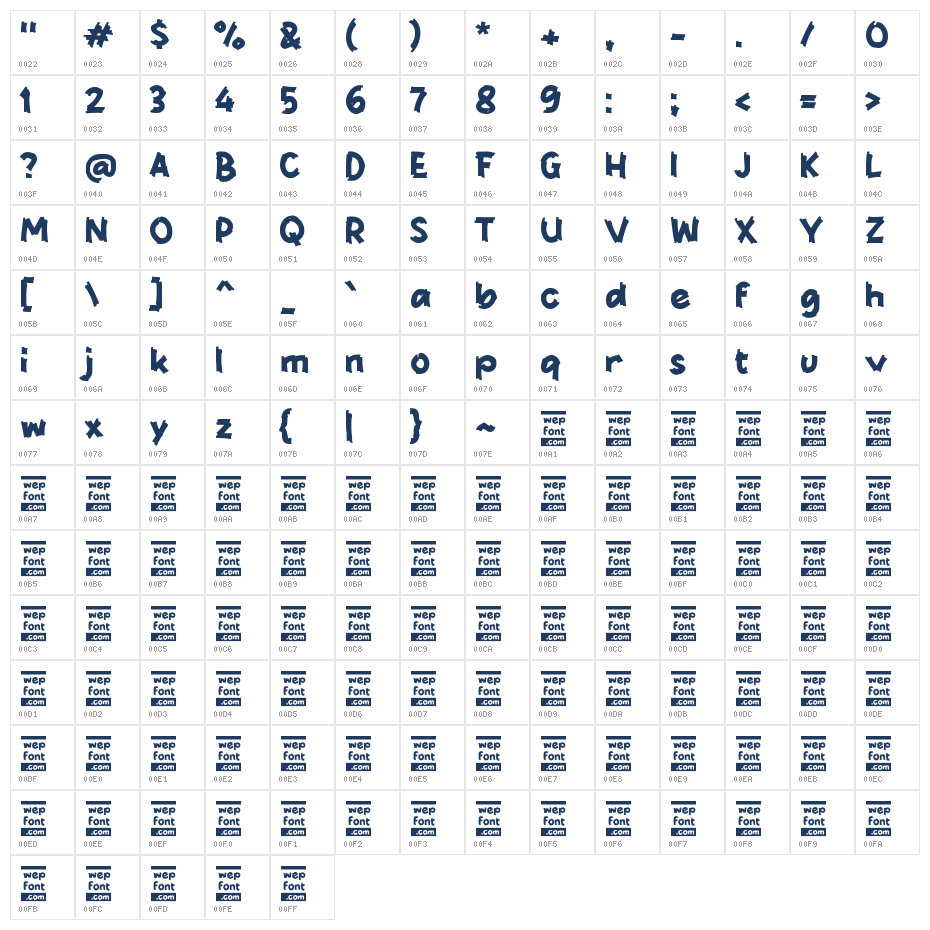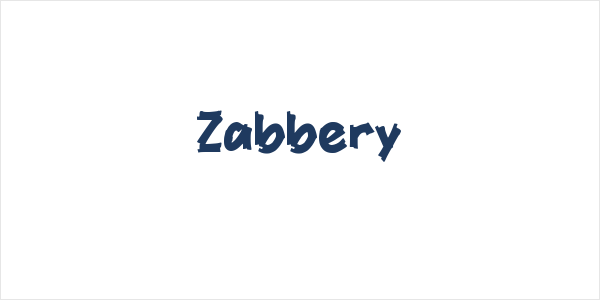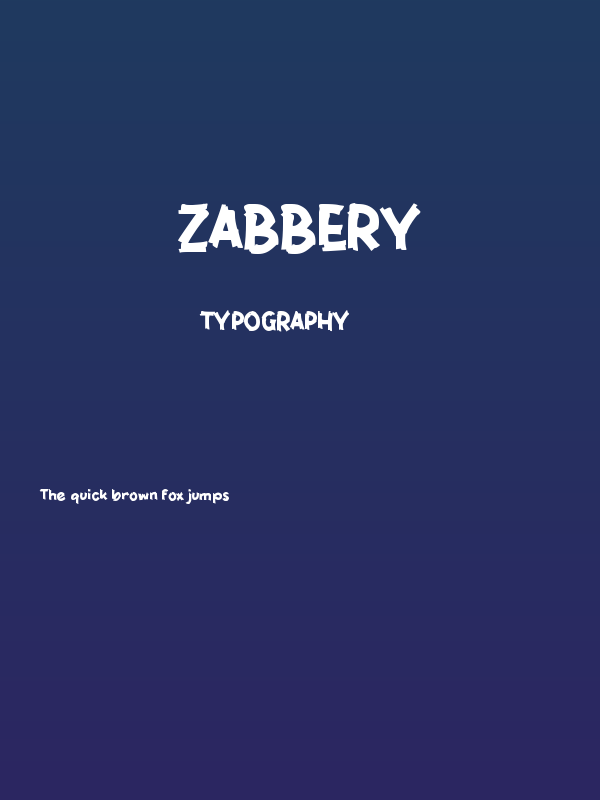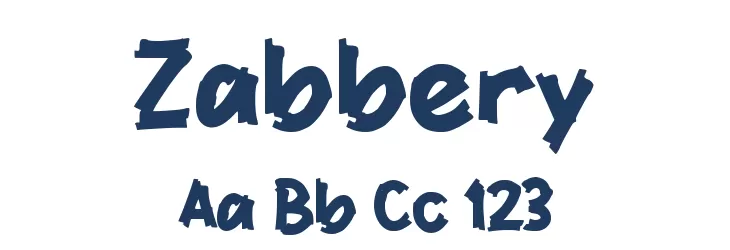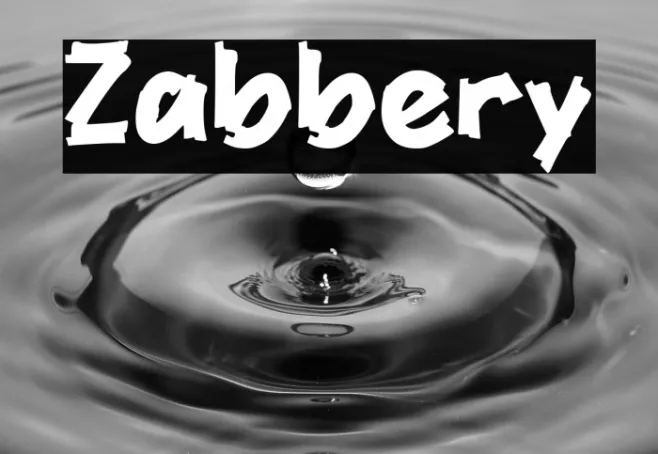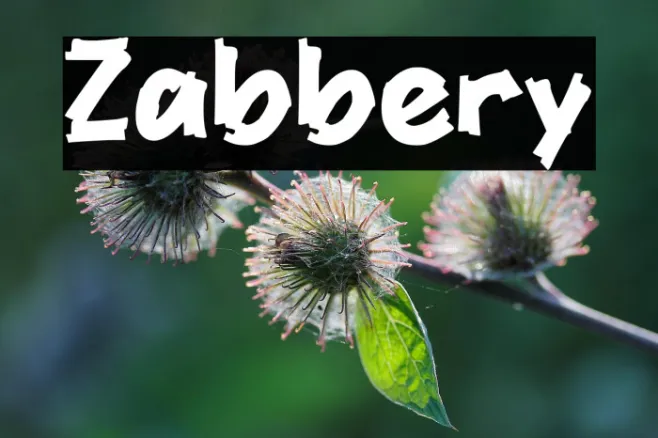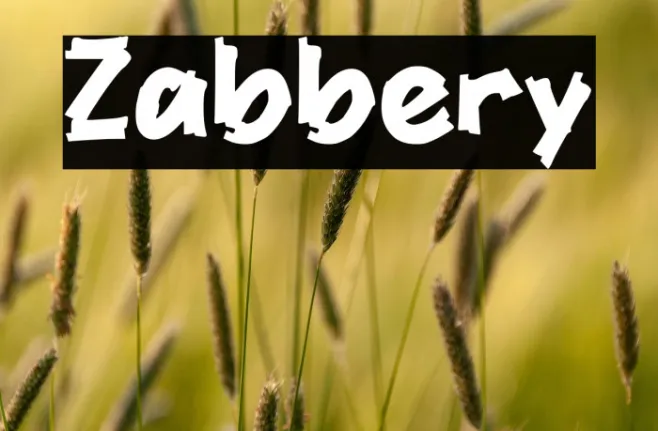
Zabbery Font
Zabbery Description
A bold, playful, and informal display font with a hand-drawn, brushstroke style.
| Overall Style | Playful, Hand-drawn, Informal |
| Use Case | Headlines, Posters, Logos, Children's products |